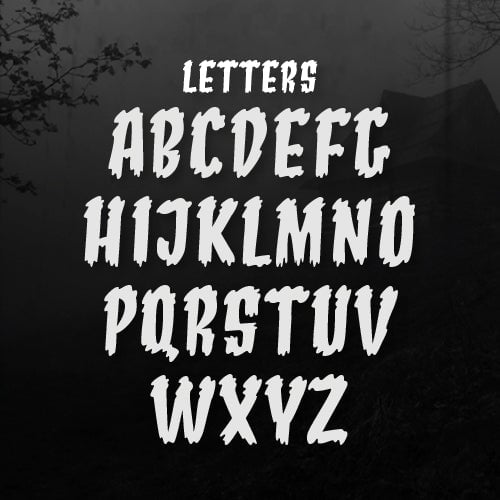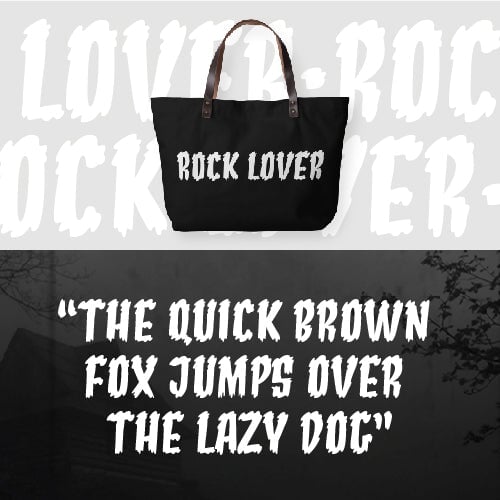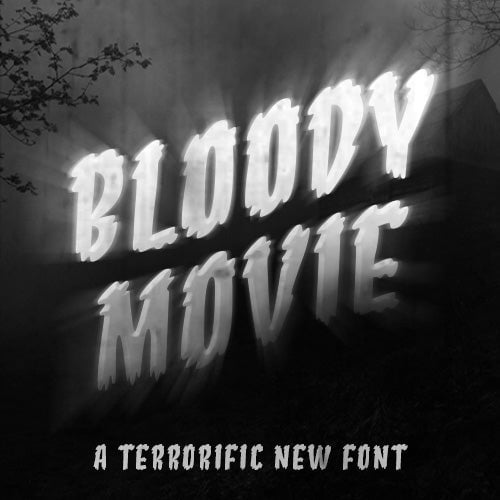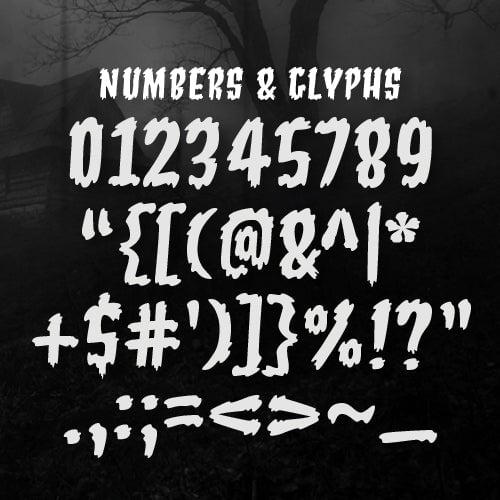
Bloody Movie Font (Download Only)
Want to add a little spook to your designs? Look no further. The Bloody Movie font will send a chill down the necks of anyone brave enough to wear it. With ghoulish curves and jagged edges, you'll be printing with one ear listening for footsteps and haunted laughter. Print at your own risk and take any design from average to "AAAHHH" with the Bloody Movie font.
• Includes solid style
• All letters, numbers, and symbols are included